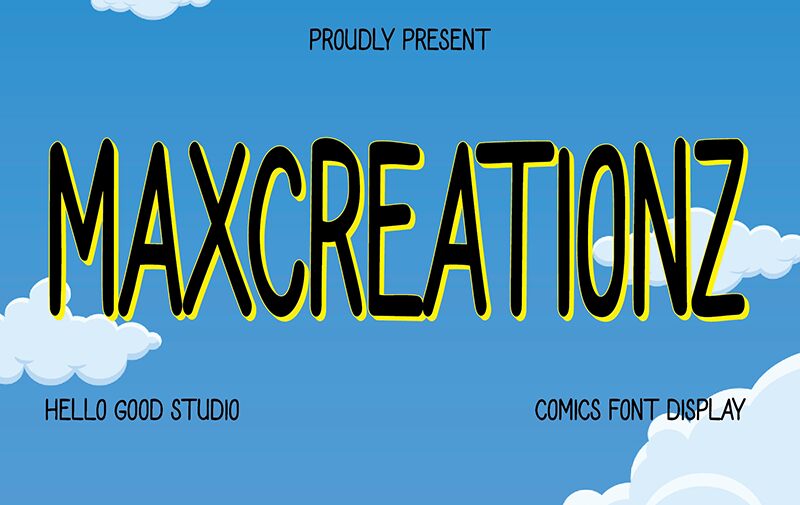
Maxcreationz font is a free handwritten font designed by Studio Hello Good in classic modern calligraphy style. It has a natural, youthful, and creative look which makes it appropriate for both personal and professional projects. Its letters are tall and narrow, an appearance classification known in typography terminology as condensed. And simply by that property, the typeface becomes more useful as it can fit more content into one line making each line’s readability better.
You can use this font for invitations (birthday or wedding), business cards, advertisements, product packaging designs, texts on photos for social media platforms like Instagram or Pinterest; branding projects like logos or slogans; book covers (printed or digital), movie posters etc.